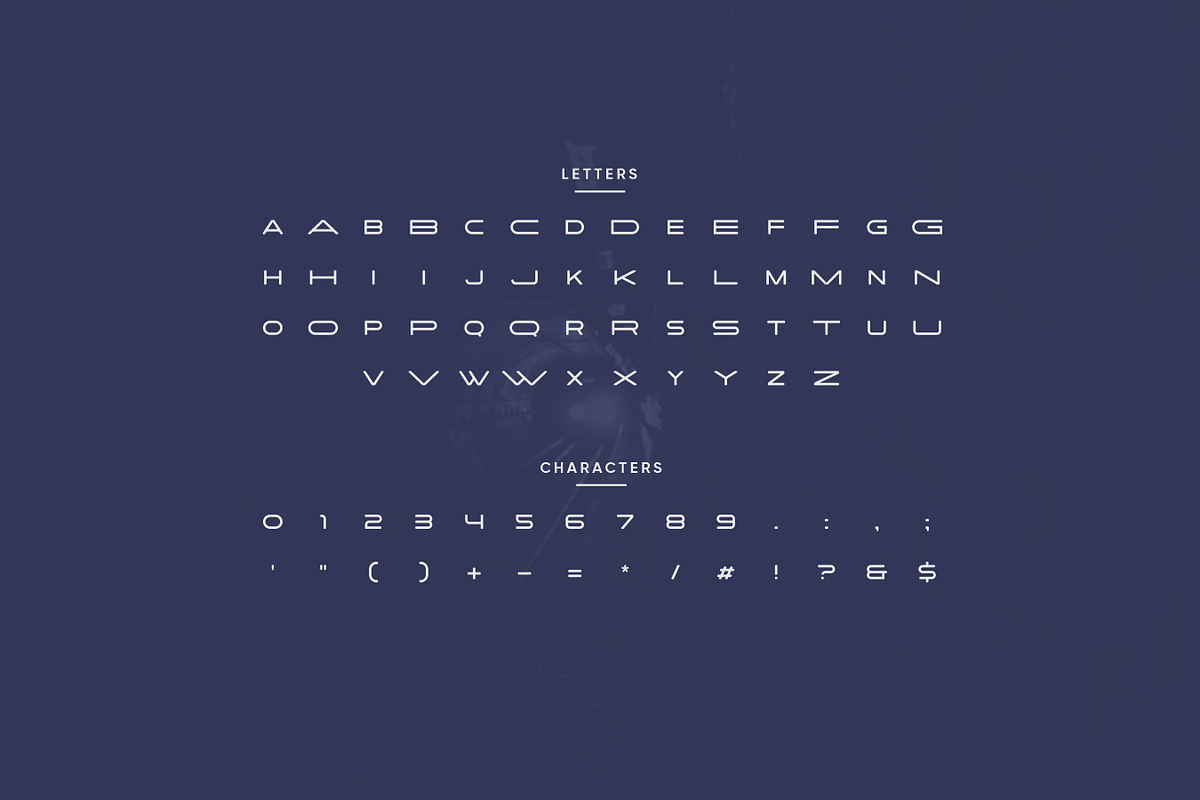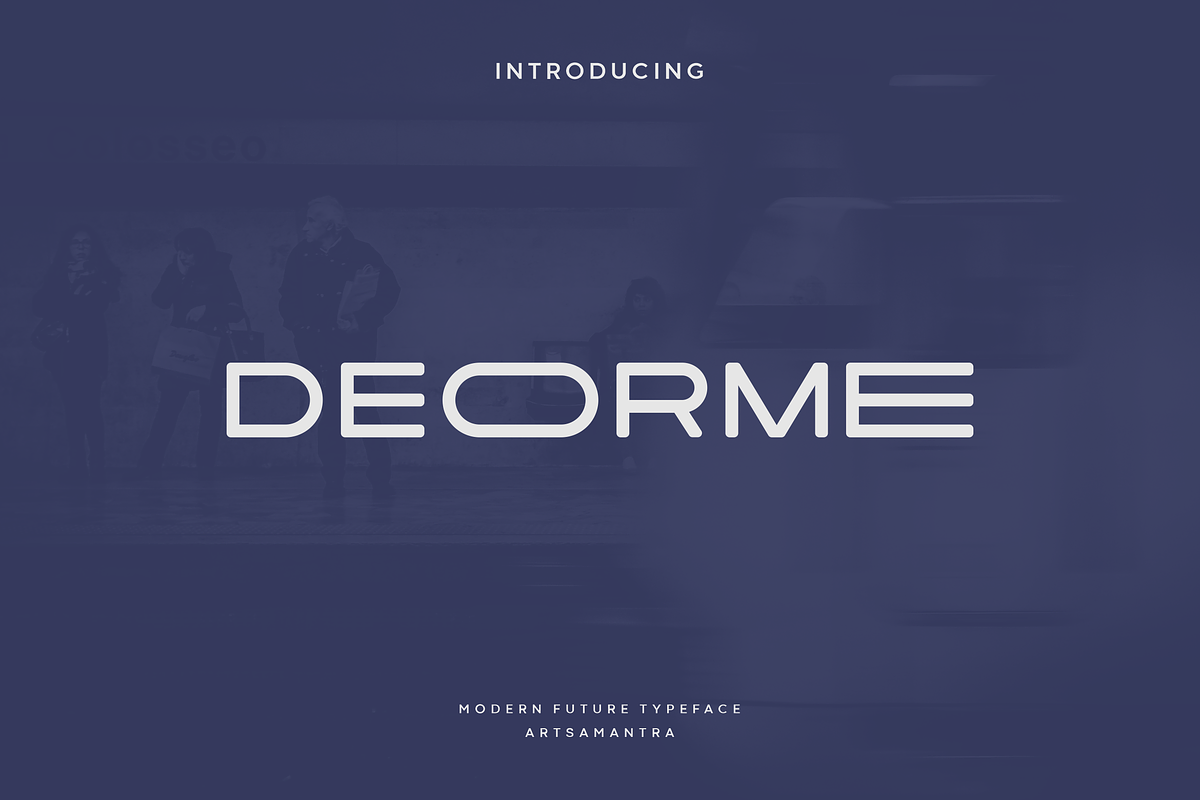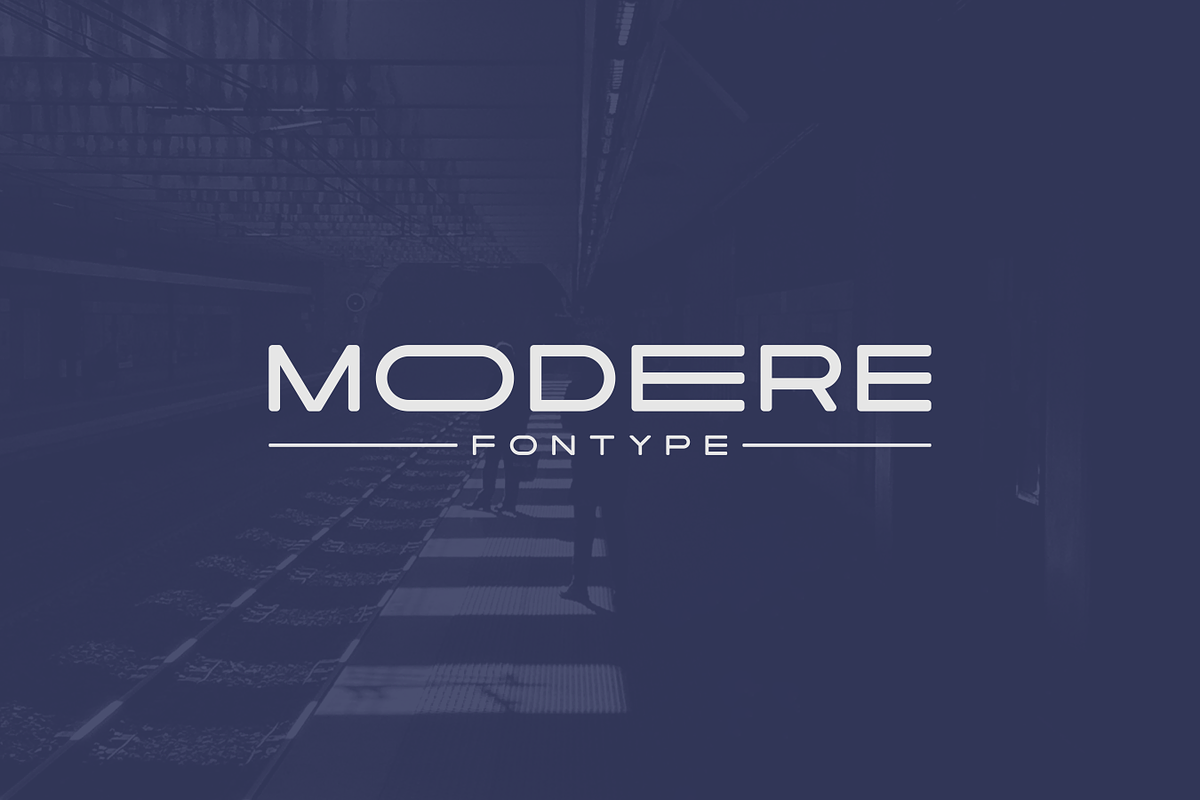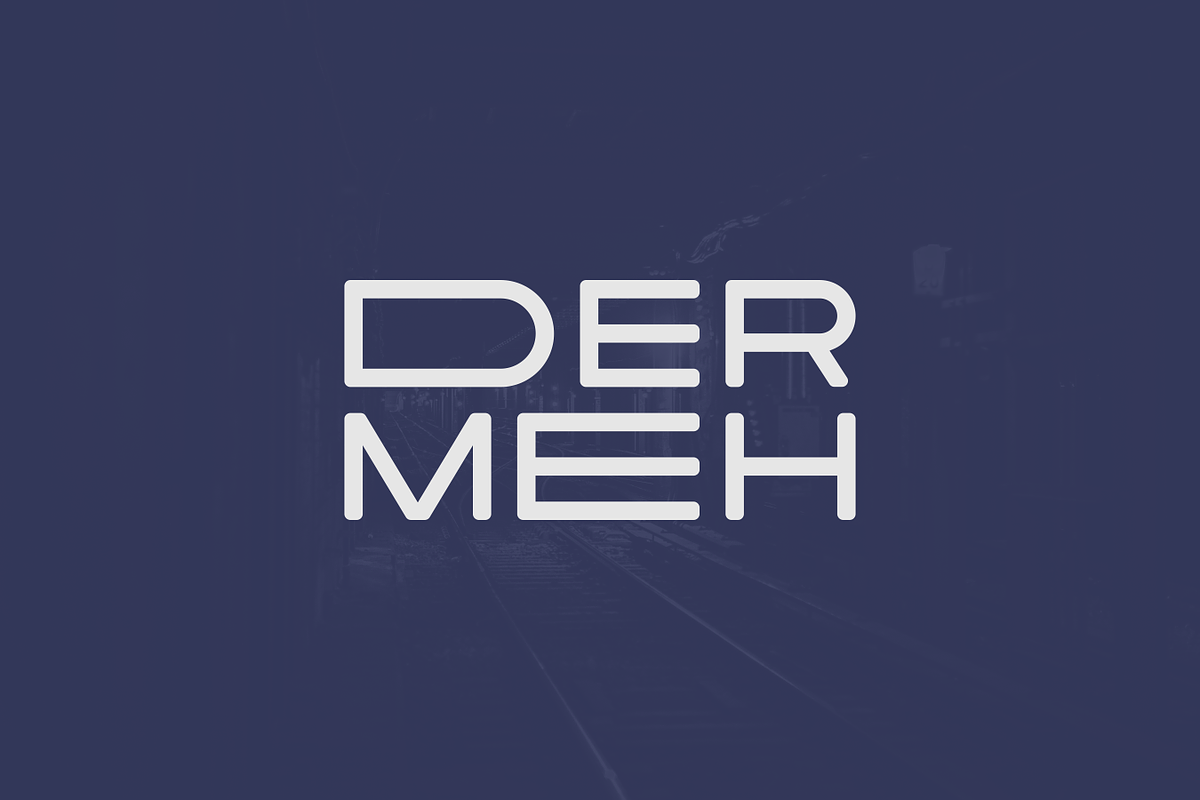
Deorme - Modern Display Typeface
Deorme is a display font with a unique style in all caps mode, even though it is an all caps font, it looks great when used in your designs. Coming with two unique styles on uppercase letters, it will make your project more dynamic if you mix the two sizes well. This font is perfect for logo, food, cards, invitation, birthday, brochure, magazine and other design projects. Think no more and grab this font for your designs, it will make your designs stand out even more!